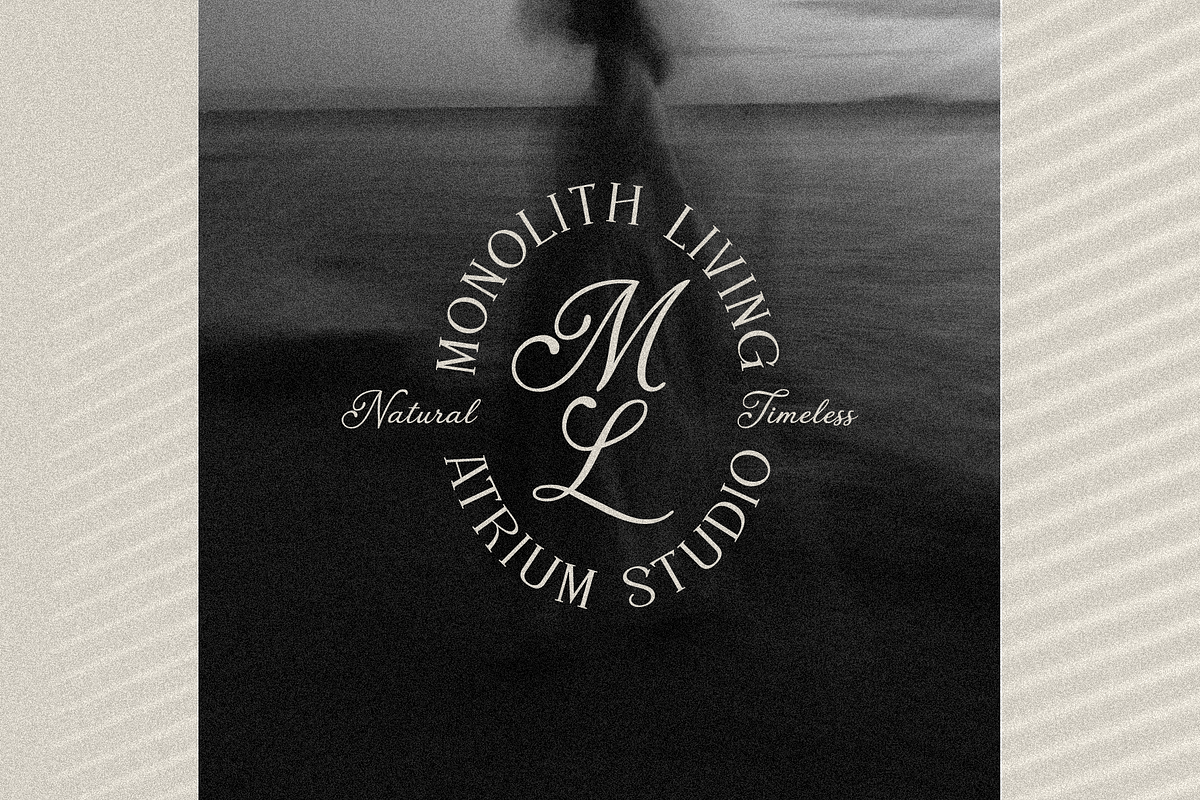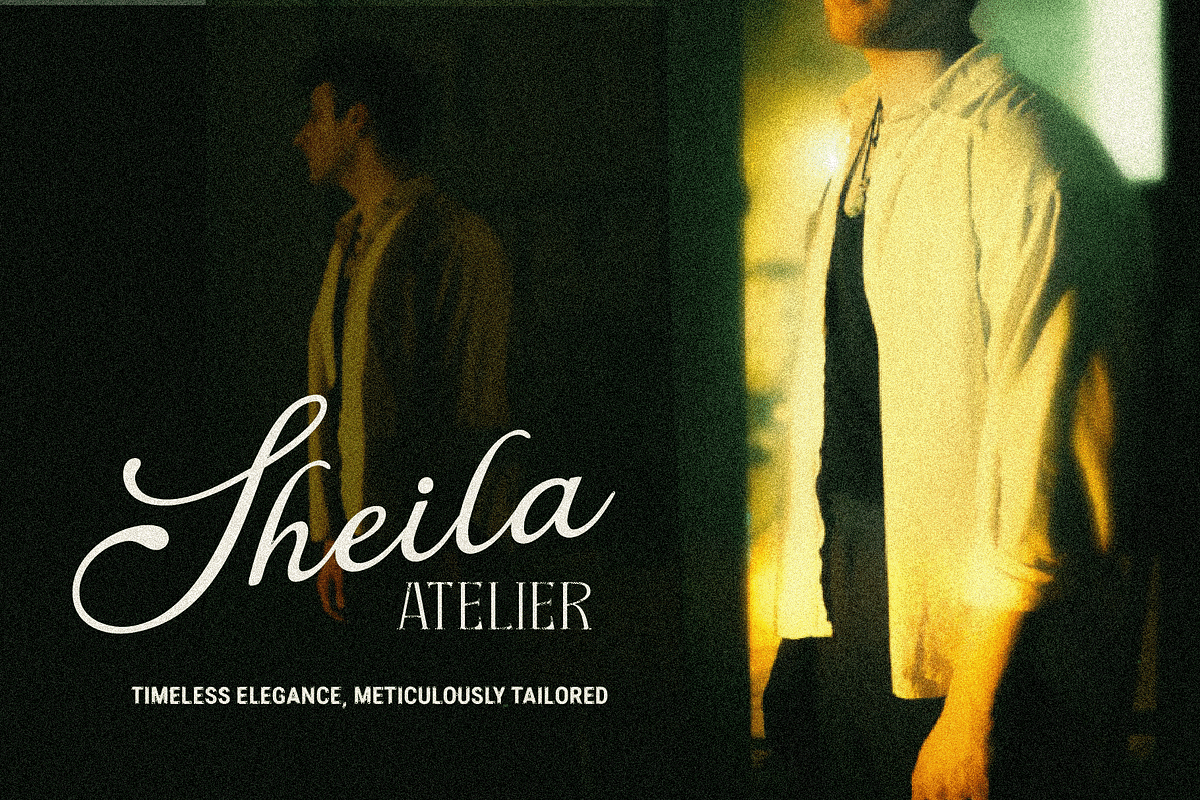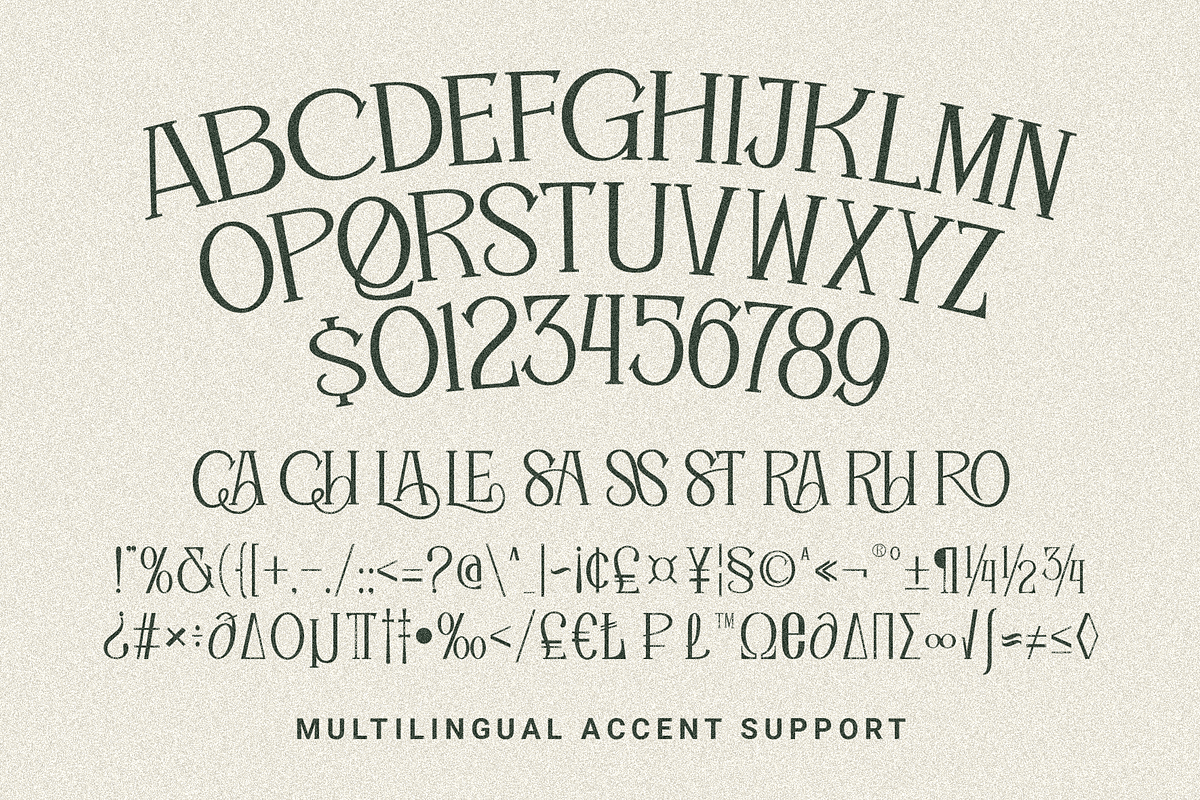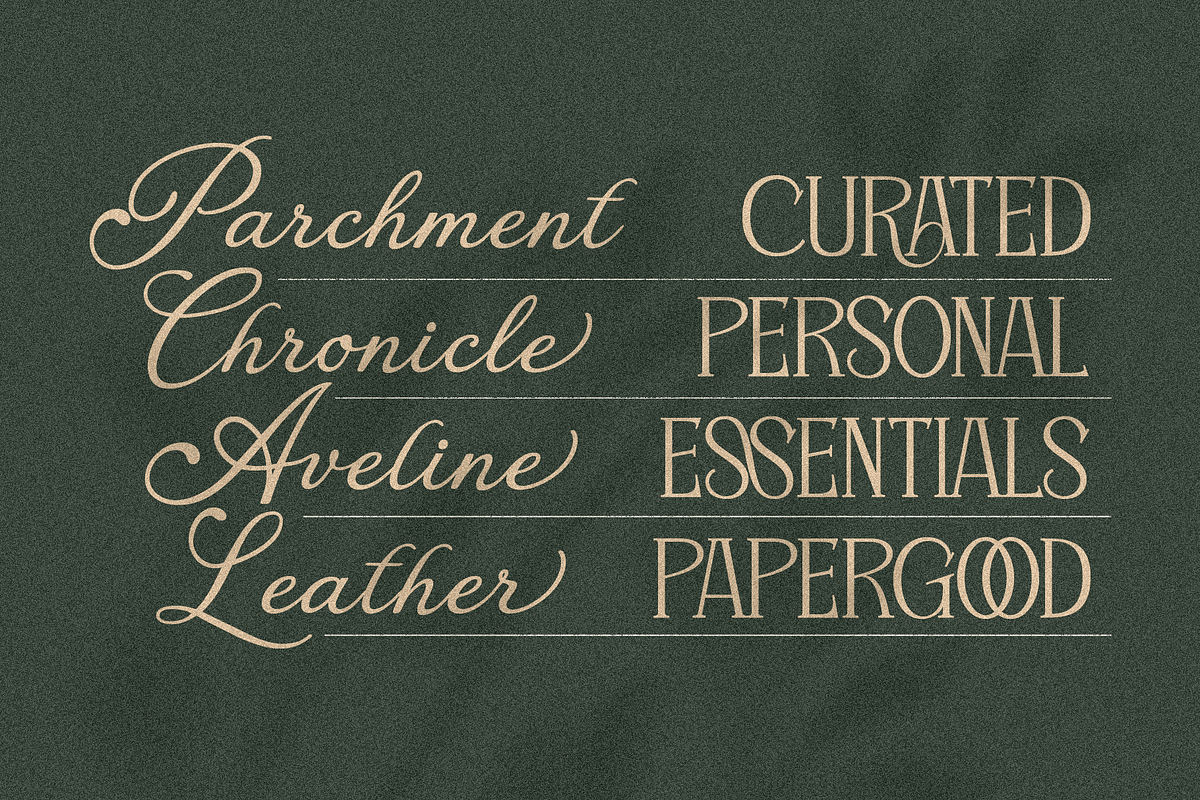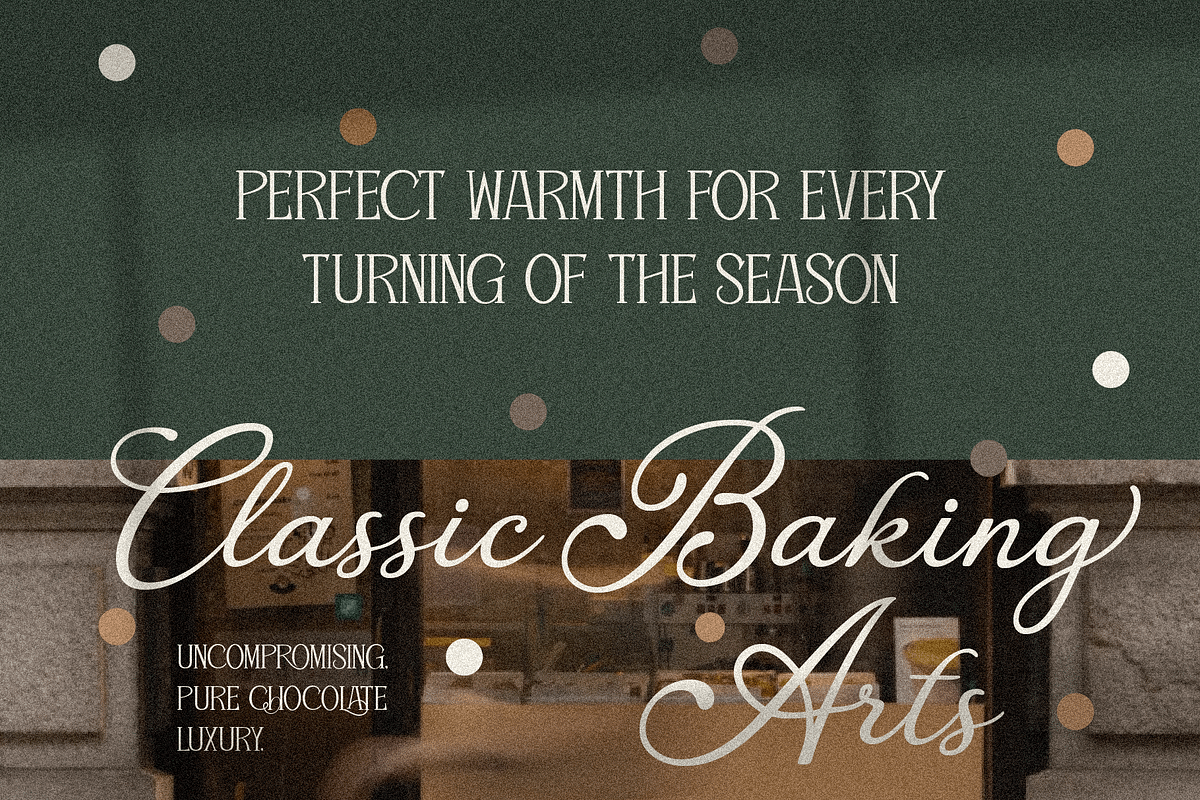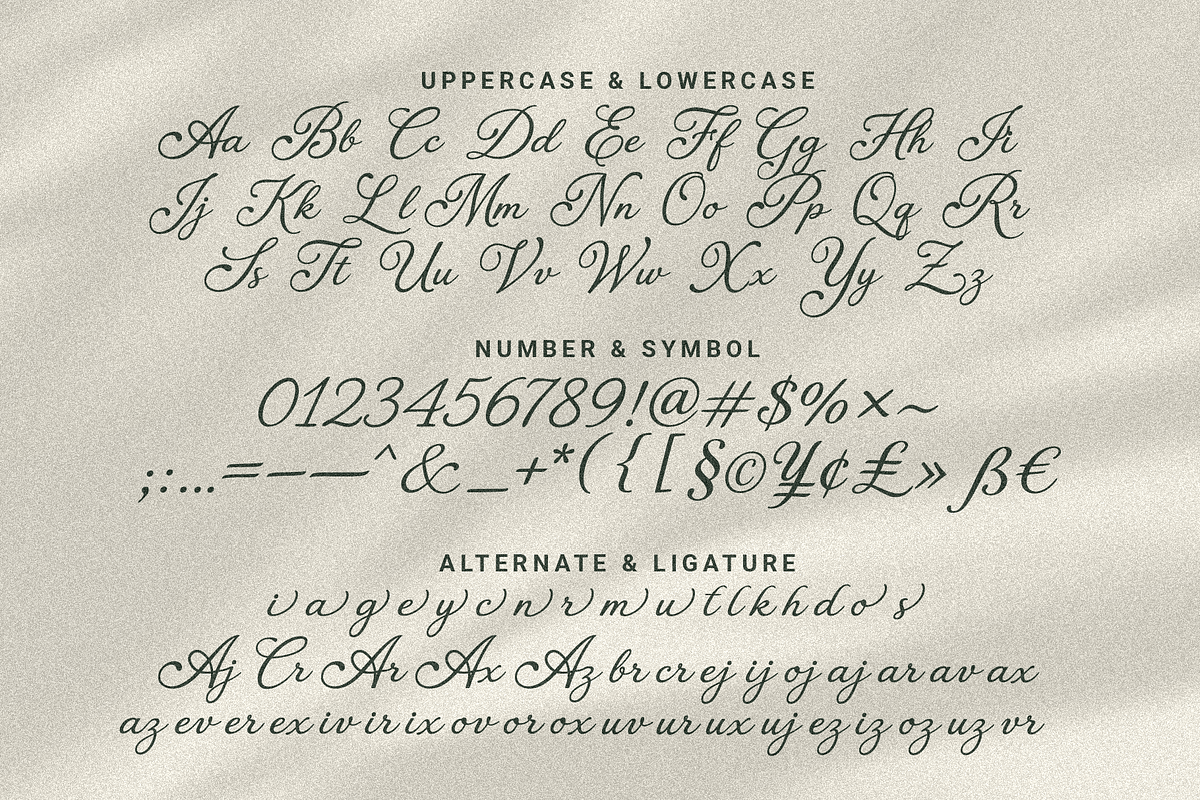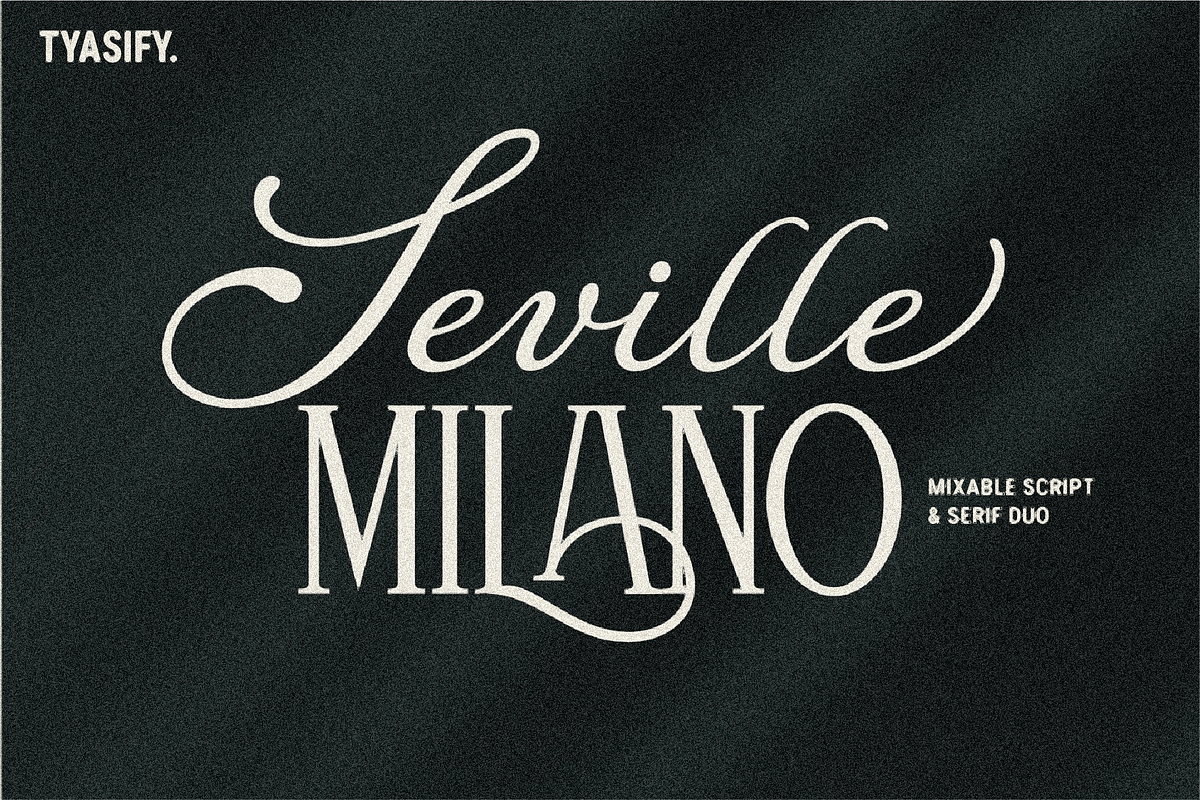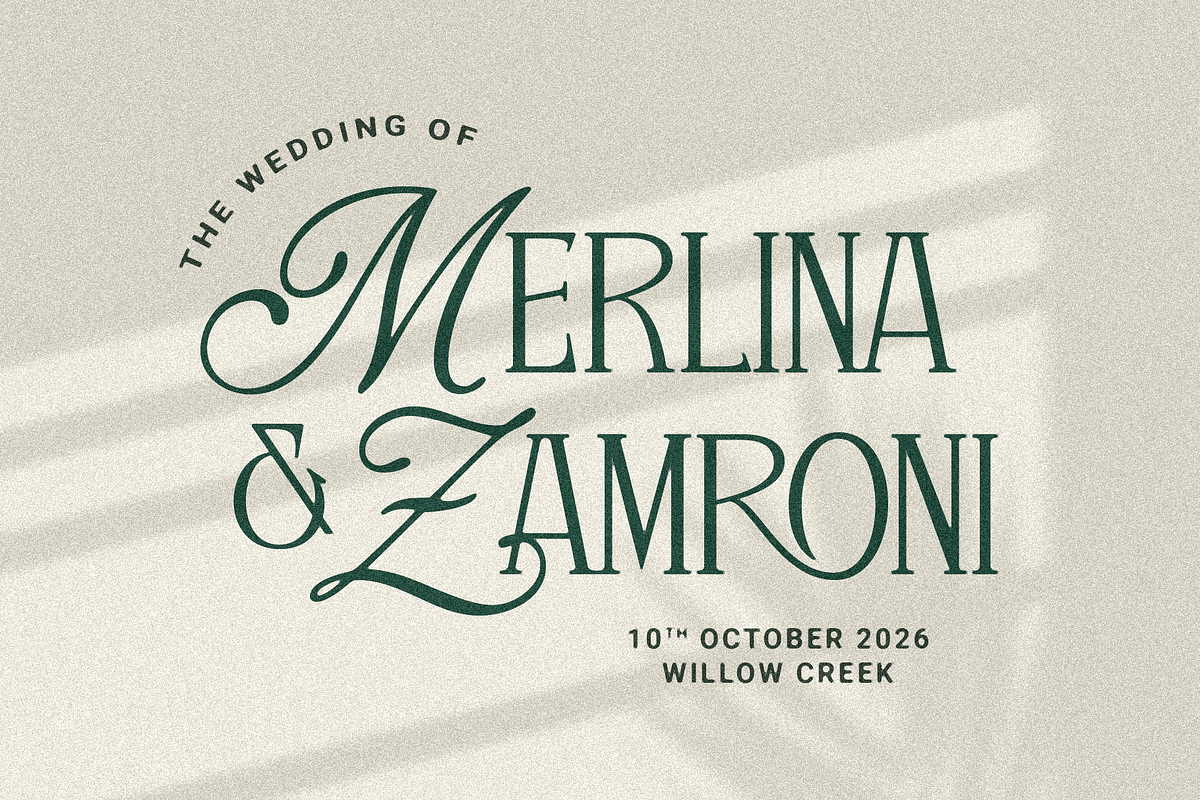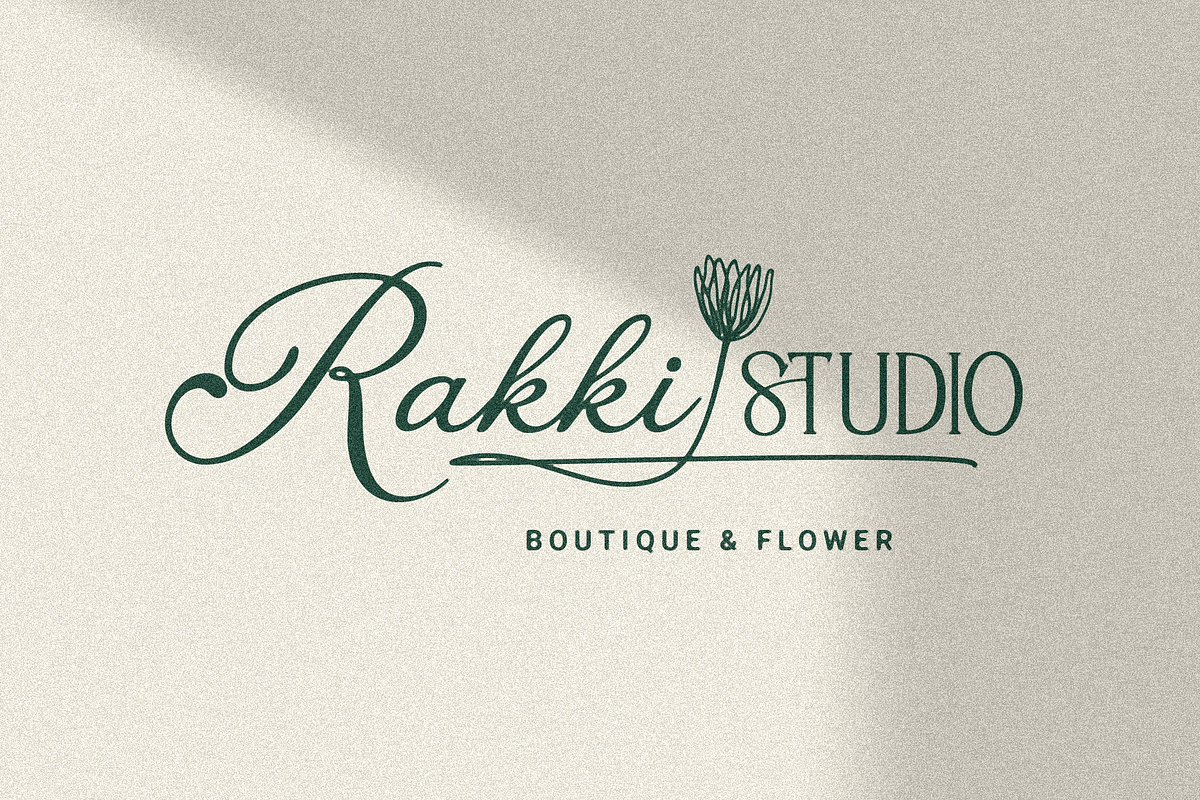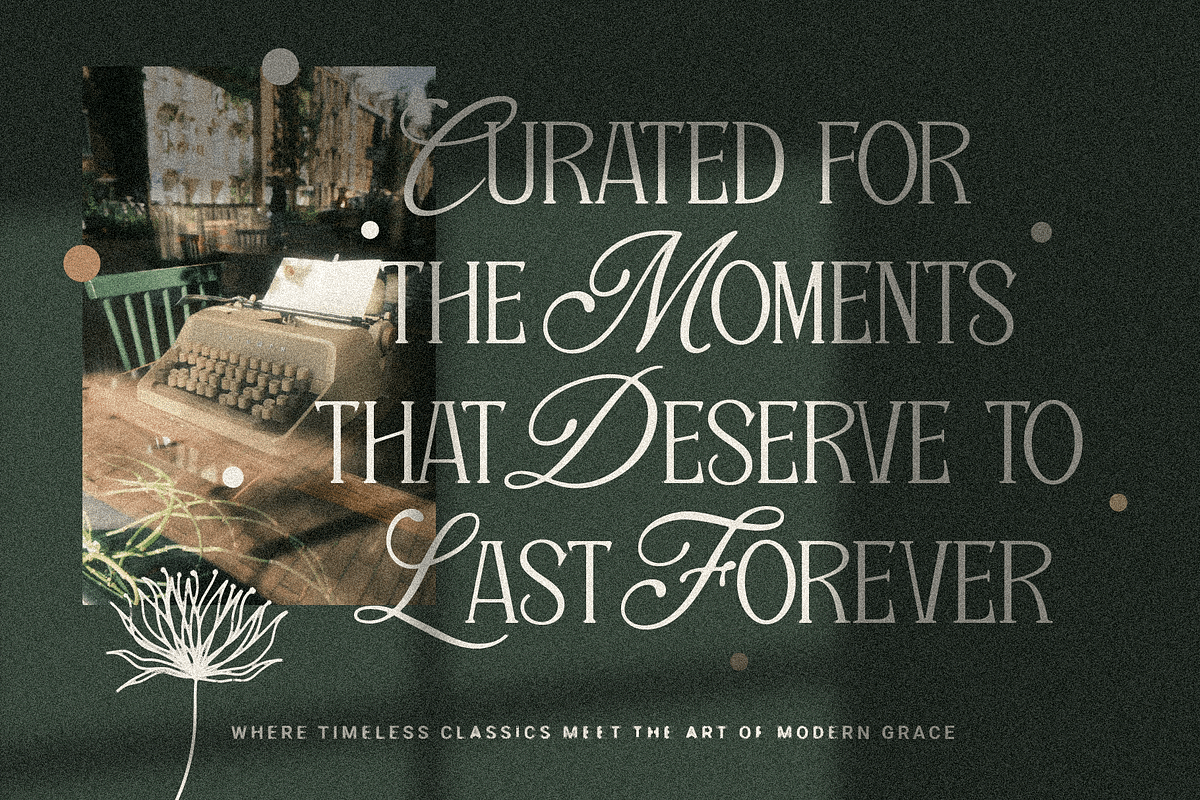
Seville Milano - Timeless Editorial
Meet Seville Milano, an elegant font duo that blends a graceful modern luxury script with a refined high-contrast serif. Designed to complement each other beautifully, this pair brings a timeless and sophisticated feel without looking overly formal. The flowing script adds personality and charm, while the serif keeps everything polished and balanced.
Perfect for branding projects, wedding invitations, logo design, beauty and fashion labels, boutique packaging, social media content, editorial layouts, quotes, restaurant menus, photography watermarks, and luxury-inspired stationery. Whether you're creating something romantic, modern, or classic, Seville Milano helps your design feel effortlessly stylish.
Seville Milano Script
Seville Milano Serif
Uppercase & Lowercase Characters
Alternate Characters